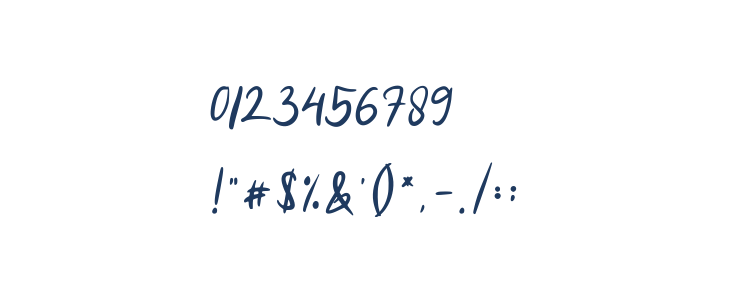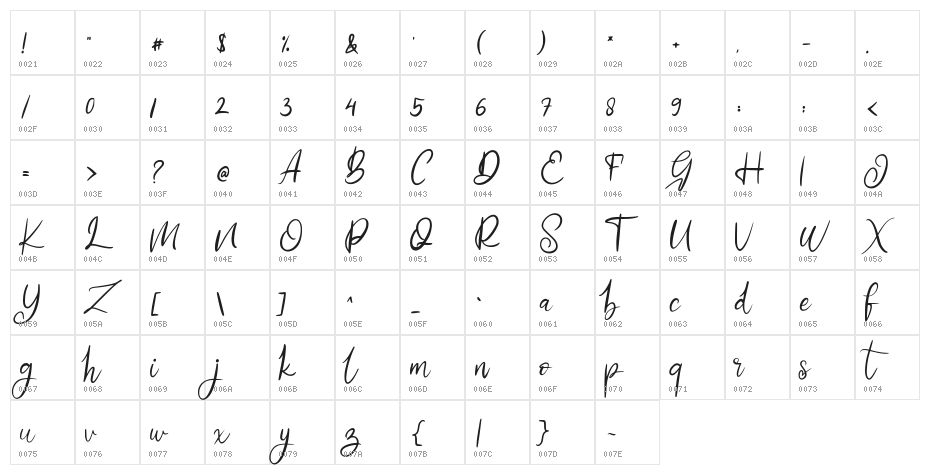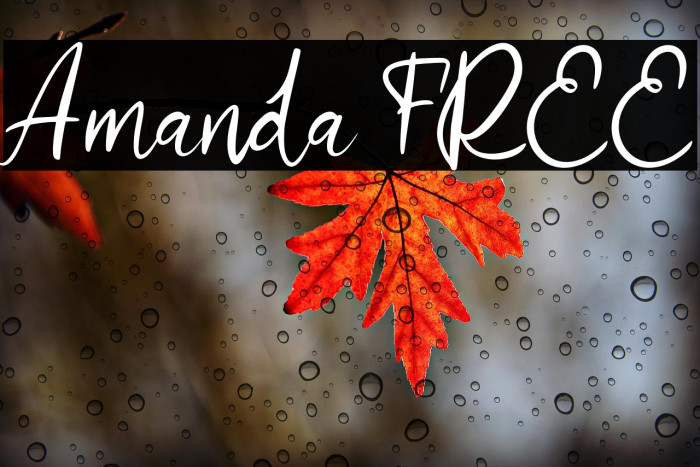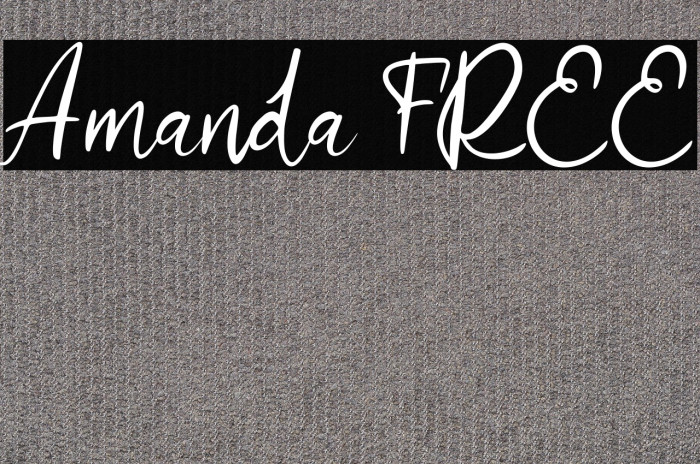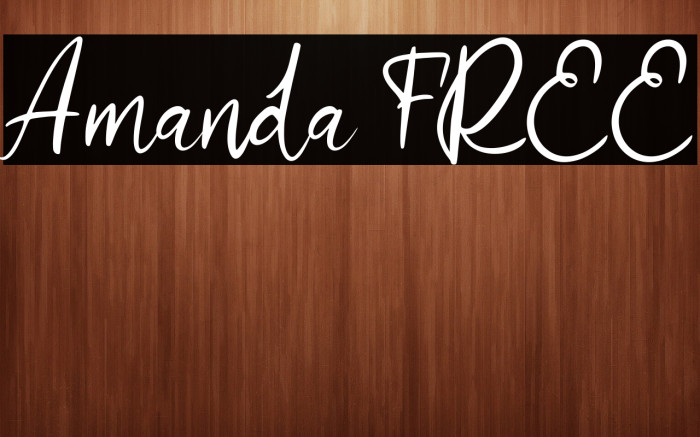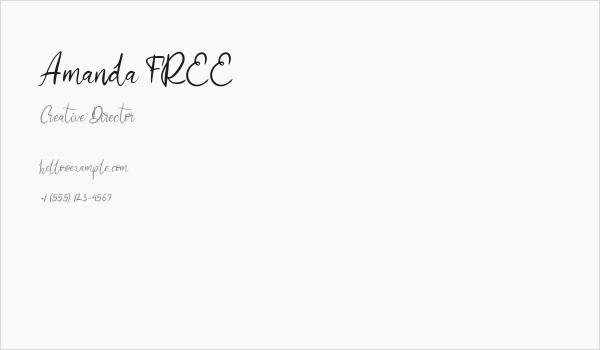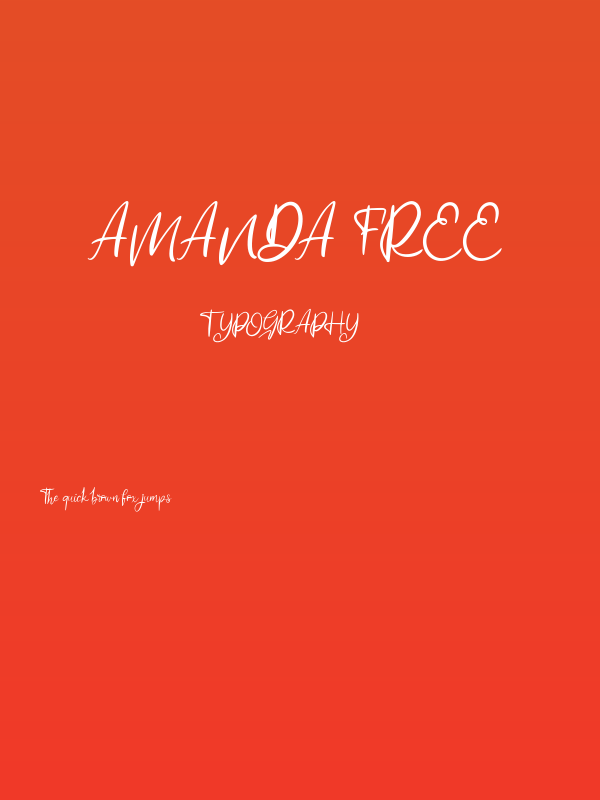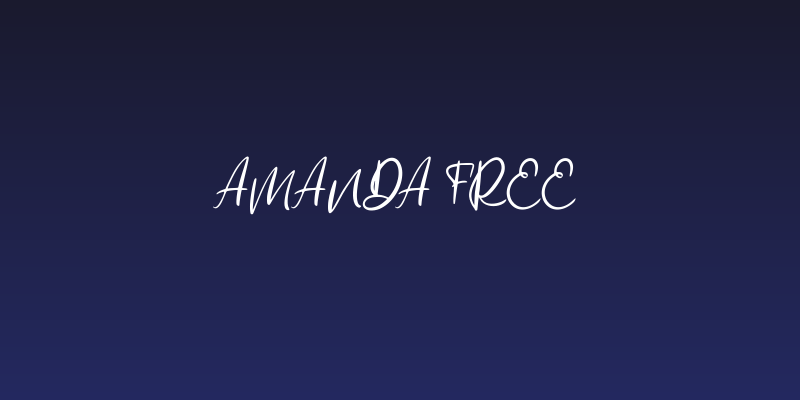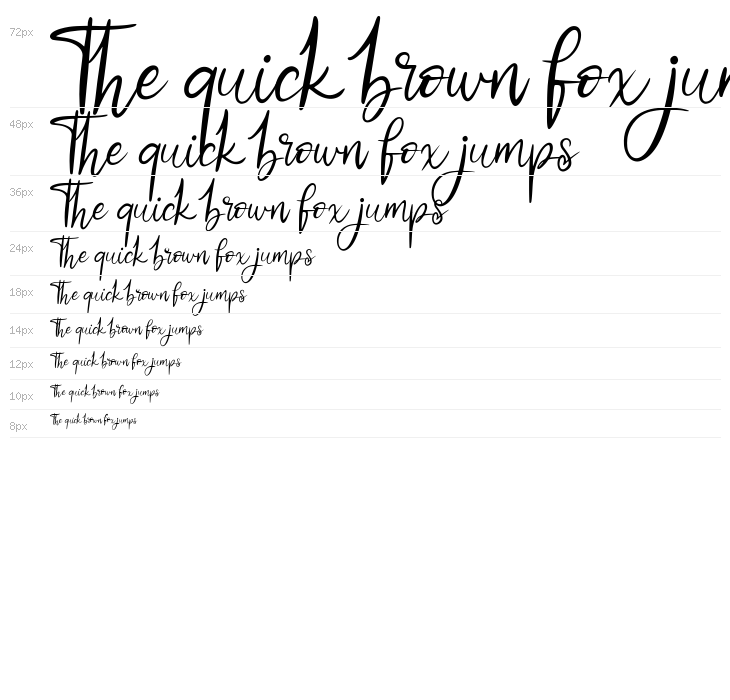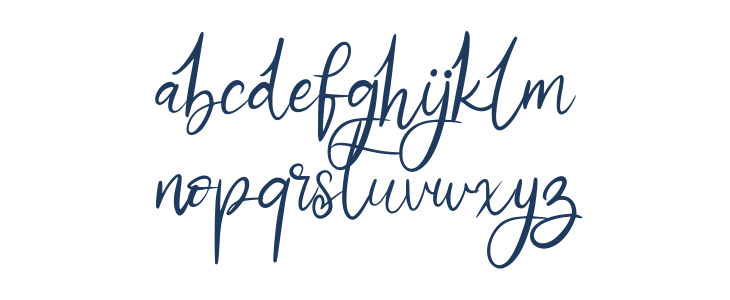
Amanda FREE Font
Amanda FREE Description
This font exudes a lively and expressive character with its flowing, cursive style. The letters are interconnected, creating a seamless and elegant appearance. The uppercase characters are bold and slightly exaggerated, giving them a dramatic flair, while the lowercase letters maintain a consistent, fluid motion. The numerals are clear and easy to read, complementing the overall aesthetic. Special characters are thoughtfully designed to match the font's playful yet sophisticated vibe. This font is perfect for projects that require a personal touch, such as invitations, greeting cards, or branding materials.
| Proposed Projects | Ideal for invitations, greeting cards, branding, and any project needing a personal touch. |